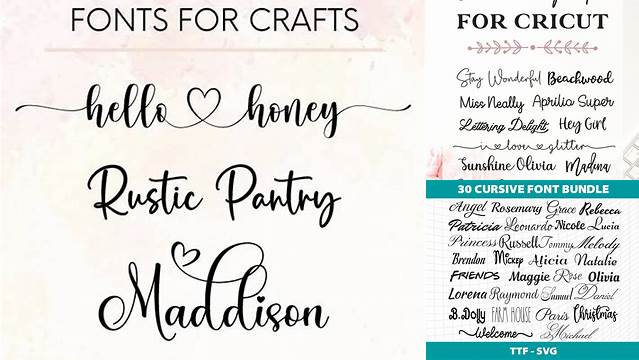
Cricut Cursive Fonts: Top Picks For Stunning Projects
Hey crafters! If you're diving into the wonderful world of Cricut, you've probably realized the power of fonts. They can transform your projects from 'meh' to amazing! And when it comes to adding a touch of elegance, personalization, or just plain fun, cursive fonts are where it's at. Finding the perfect cursive font can feel like searching for a needle in a haystack. But fear not, because we're diving deep into the popular Cricut cursive fonts that will take your DIY game to the next level. Let's get started, guys!
Why Cursive Fonts are a Cricut Must-Have
So, why all the hype around cursive fonts for Cricut? Well, first off, they add a certain je ne sais quoi to your creations. They bring a sense of sophistication and artistry that you just can't get with basic block letters. Think about it: a custom-made card with a beautifully scripted name, a personalized home decor piece with a flowing quote, or even custom apparel with a stylish monogram. Cursive fonts instantly elevate the aesthetic appeal of your projects. They're also fantastic for adding a personal touch, whether you're crafting gifts, creating invitations, or making items to sell. In a world of mass-produced items, a handmade piece with a unique cursive font speaks volumes. That's where popular Cricut cursive fonts become essential tools. They allow you to express your creativity and leave a lasting impression.
Beyond aesthetics, cursive fonts offer versatility. They come in a wide range of styles, from elegant and flowing to playful and whimsical. This diversity means you can find the perfect font to match any project or theme. Need a formal font for a wedding invitation? There's a cursive font for that. Want something fun and quirky for a kid's birthday banner? Yep, there's a cursive font for that too. This adaptability is one of the biggest reasons why cursive fonts are so popular among Cricut users. It's like having a whole library of artistic styles at your fingertips. Plus, with the Cricut's precision cutting capabilities, you can achieve intricate designs and delicate lettering with ease. This opens up a world of possibilities for personalizing and customizing your projects, making them truly unique and special. Whether you're a seasoned crafter or a newbie, having a selection of popular Cricut cursive fonts is like having a secret weapon in your creative arsenal. It's the key to unlocking a whole new level of DIY magic.
Cursive fonts are also a great way to add a personal touch to your projects. They offer a sense of personalization that block letters simply can't replicate. Think about the handwritten notes you receive from loved ones. They feel more special, don't they? Cursive fonts bring that same feeling to your Cricut creations. By choosing a font that reflects your style and the message you want to convey, you can create truly unique and meaningful items. This is especially important when crafting gifts, as a personalized item shows that you've put thought and effort into creating something special for the recipient. Cursive fonts allow you to express your creativity and leave a lasting impression, making your projects stand out from the crowd.
Top 5 Popular Cricut Cursive Fonts You Need to Know
Okay, guys, let's get down to business! Here are some of the most popular Cricut cursive fonts that you absolutely need to know. These fonts are beloved by Cricut users for their beauty, versatility, and ease of use. Get ready to add these to your font library!
1. Samantha Font Family
Oh, Samantha! This font is a true classic, and for good reason. Known for its elegant and flowing design, Samantha is perfect for a wide range of projects, from wedding invitations to home decor. Its graceful curves and delicate strokes make it a favorite for creating sophisticated and timeless designs. The Samantha font family offers a variety of styles, including regular, bold, and italic, giving you plenty of options to customize your projects. It's also incredibly easy to use, making it a great choice for both beginners and experienced Cricut users. The connectors between the letters are smooth and seamless, ensuring that your final product looks clean and professional. This font is a must-have for anyone looking to add a touch of elegance to their creations. Its versatility and timeless appeal make it a go-to choice for many Cricut projects, ensuring that your designs always look their best. If you're aiming for a touch of sophistication and timeless elegance, the Samantha Font Family is your go-to choice. Its graceful strokes and easy-to-use nature make it a true gem in the world of popular Cricut cursive fonts.
Samantha is not just a single font; it's a whole family. This means you get different weights and styles to play with, allowing you to customize your designs to your heart's content. Need a bolder look? Go with Samantha Bold. Want something a bit more delicate? Stick with the regular style. This versatility is what makes Samantha so popular. It can adapt to suit any project, whether you're creating invitations, home decor, or personalized gifts. The legibility is also a key factor in its popularity. Despite its elegant and flowing design, Samantha remains easy to read, ensuring that your message is clear and your design is beautiful. This combination of beauty and functionality makes it a true winner in the popular Cricut cursive fonts category. Plus, the smooth connections between letters make it super easy to weed (remove the excess vinyl) - a definite bonus for any Cricut user.
2. Bello Font
Next up, we have Bello. This font is all about adding a touch of modern flair to your projects. It's known for its clean lines, slightly condensed design, and beautiful curves, making it ideal for a variety of uses. Bello strikes the perfect balance between elegance and readability. It's not overly elaborate, so it's easy to read, but still has that beautiful cursive flow that makes it stand out. This font is perfect for anyone looking for a contemporary and stylish option. It's particularly great for monograms, logos, and modern home decor pieces. Because it's a little less ornate than some other cursive fonts, it works really well on items where you want the text to be clear and the design to be clean. Bello is a versatile font that can be used for a wide range of projects. It's equally at home on a modern wedding invitation as it is on a stylish piece of wall art. Its clean lines and contemporary feel make it a popular choice for designers and crafters alike.
Bello's popularity also stems from its versatility. It's not just for fancy projects; it works well in a variety of contexts. Whether you're crafting a custom t-shirt, designing a logo, or creating a stylish sign, Bello will give your project a modern and polished look. Plus, it's easy to work with in Cricut Design Space. You won't have to spend hours tweaking the letter spacing or welding the letters together – it's ready to go right out of the box. This ease of use makes it a favorite among Cricut users of all skill levels. Its modern design and user-friendly features make it a top contender in the world of popular Cricut cursive fonts. Bello offers a fresh and contemporary twist on classic cursive styles, making it a must-have for your font collection.
3. Blacksmith Font
If you're looking for a font that's both rustic and elegant, Blacksmith is the way to go. This font has a handcrafted feel, with slightly textured edges and a flowing script that adds a touch of vintage charm to your creations. Blacksmith is perfect for projects where you want to evoke a sense of nostalgia or a handmade aesthetic. It's often used for signs, farmhouse decor, and projects with a vintage theme. It has a unique character that sets it apart from more polished cursive fonts, giving your designs a warm and inviting feel. The slight imperfections in the font’s design add to its charm and authenticity. Blacksmith is like a work of art in itself, each letter carefully crafted to create a cohesive and beautiful script.
Tips for Using Cursive Fonts with Your Cricut
Alright, you've got your fonts, now what? Here are a few tips to help you get the most out of your popular Cricut cursive fonts:
- Welding is Key: When using cursive fonts, you'll need to